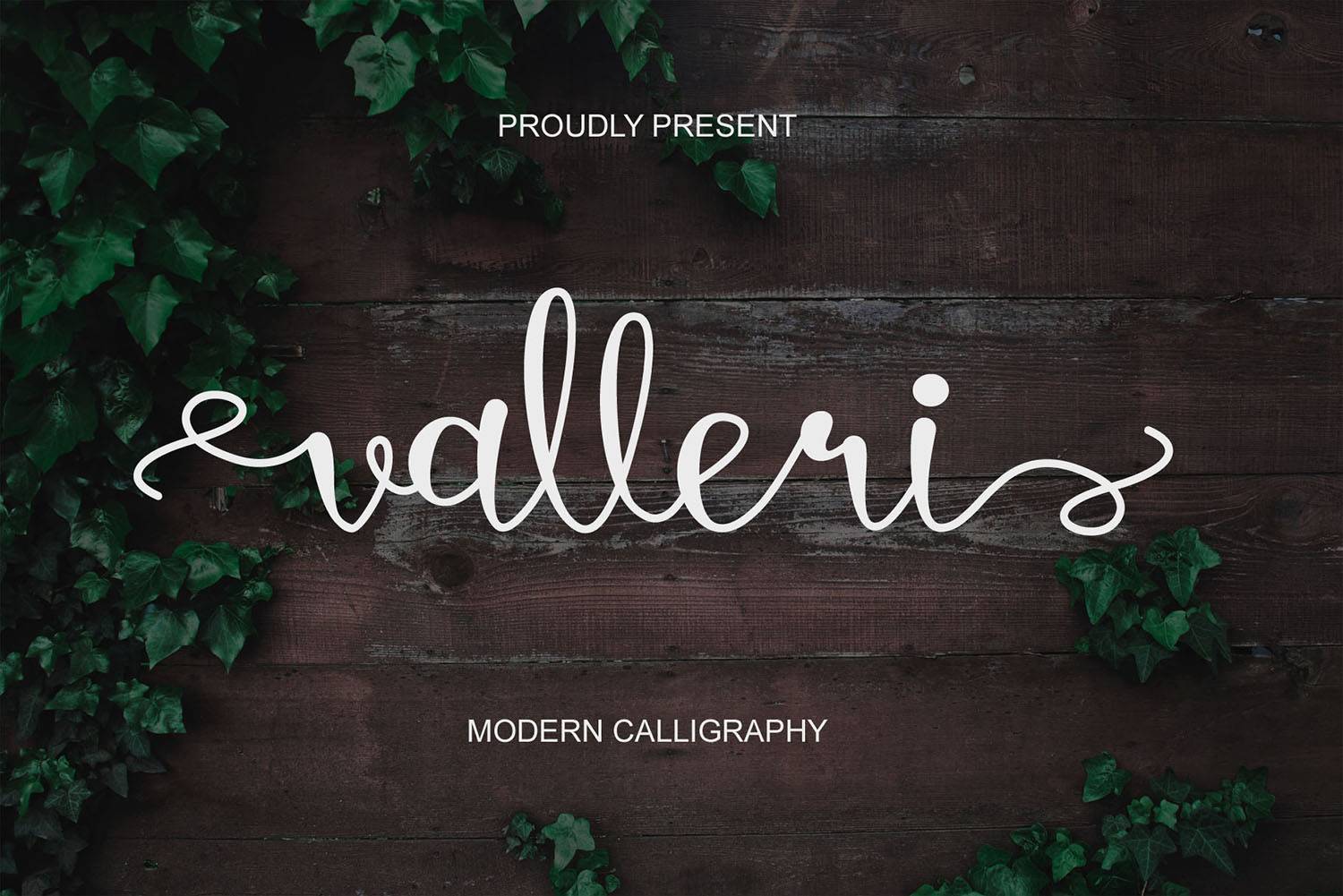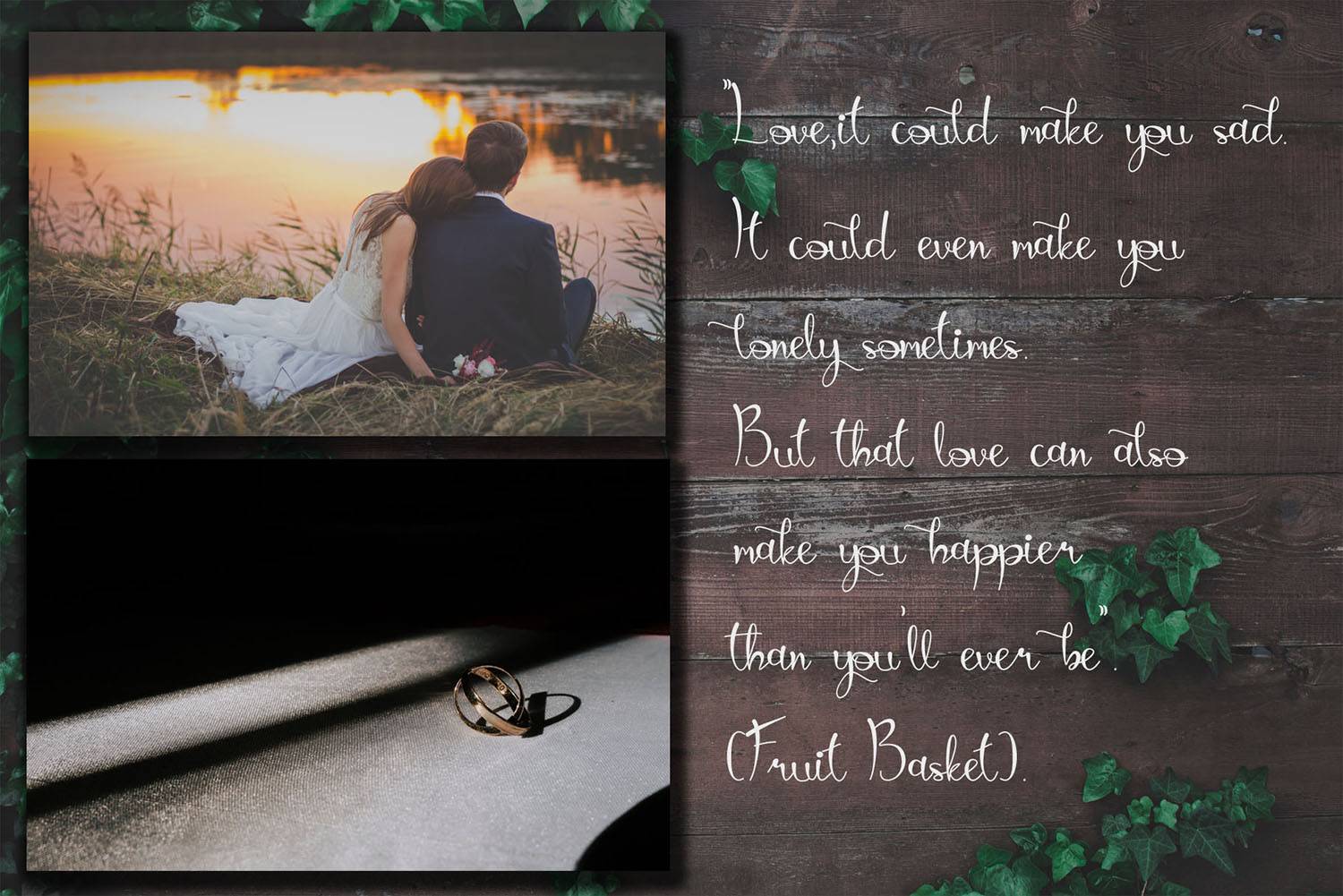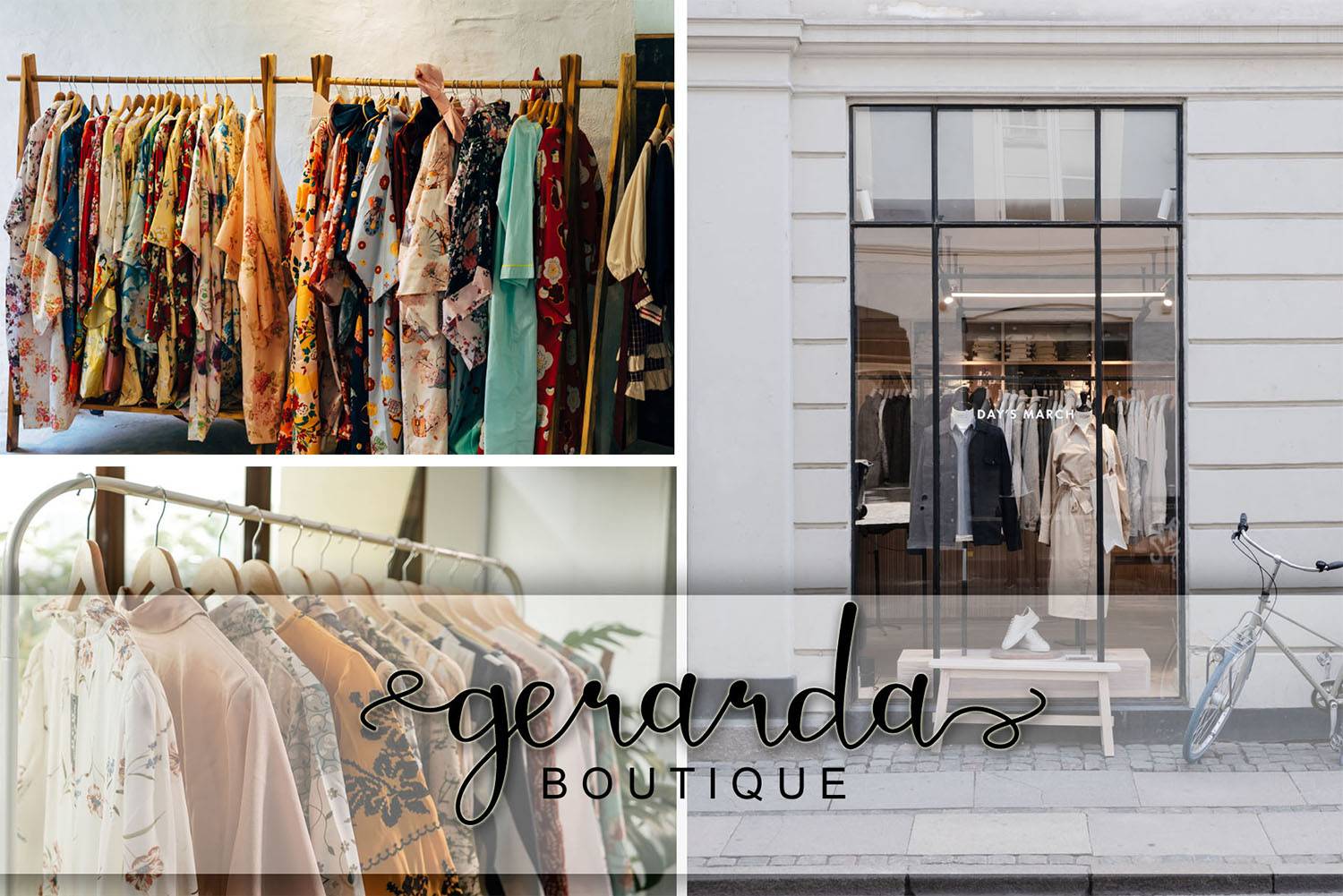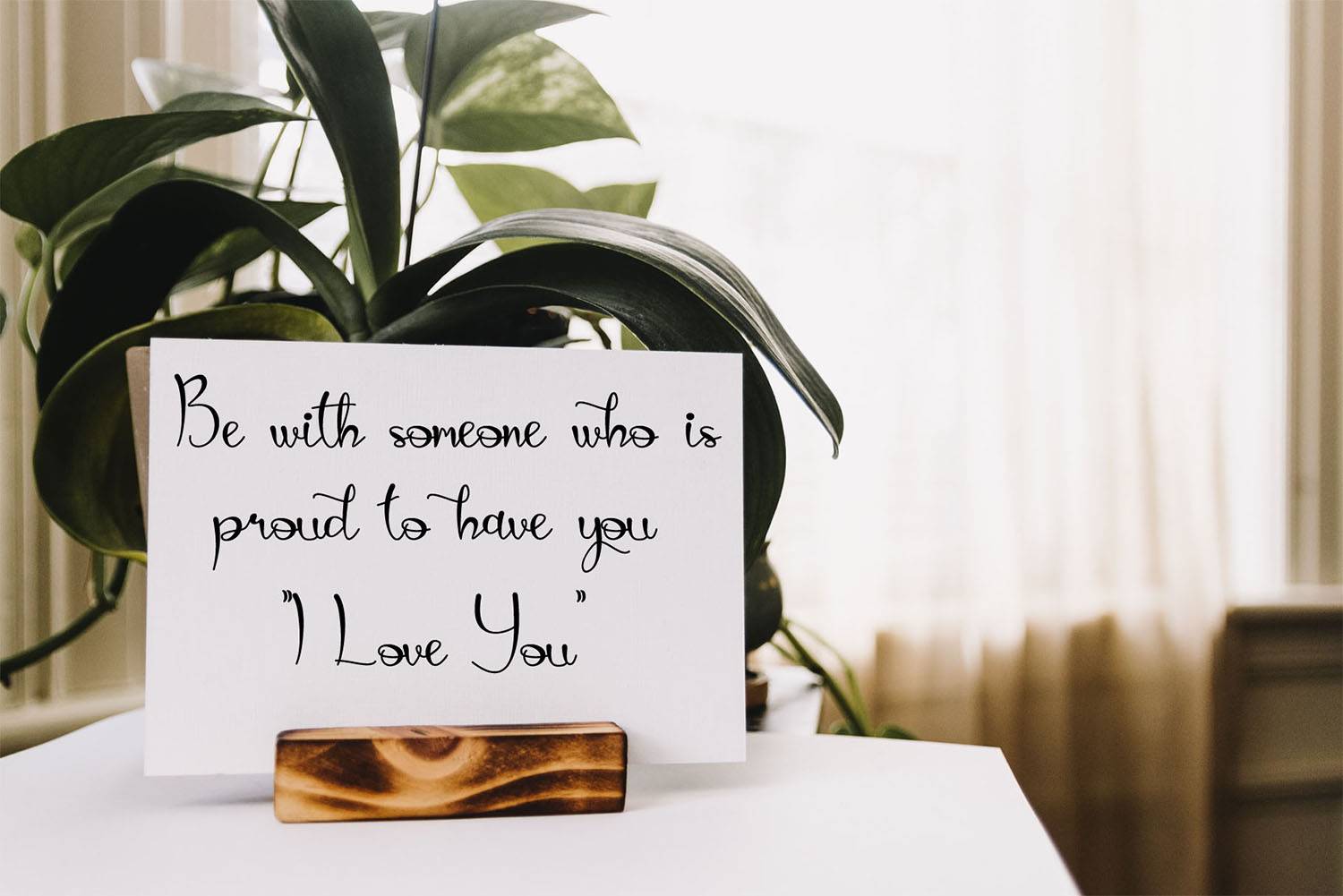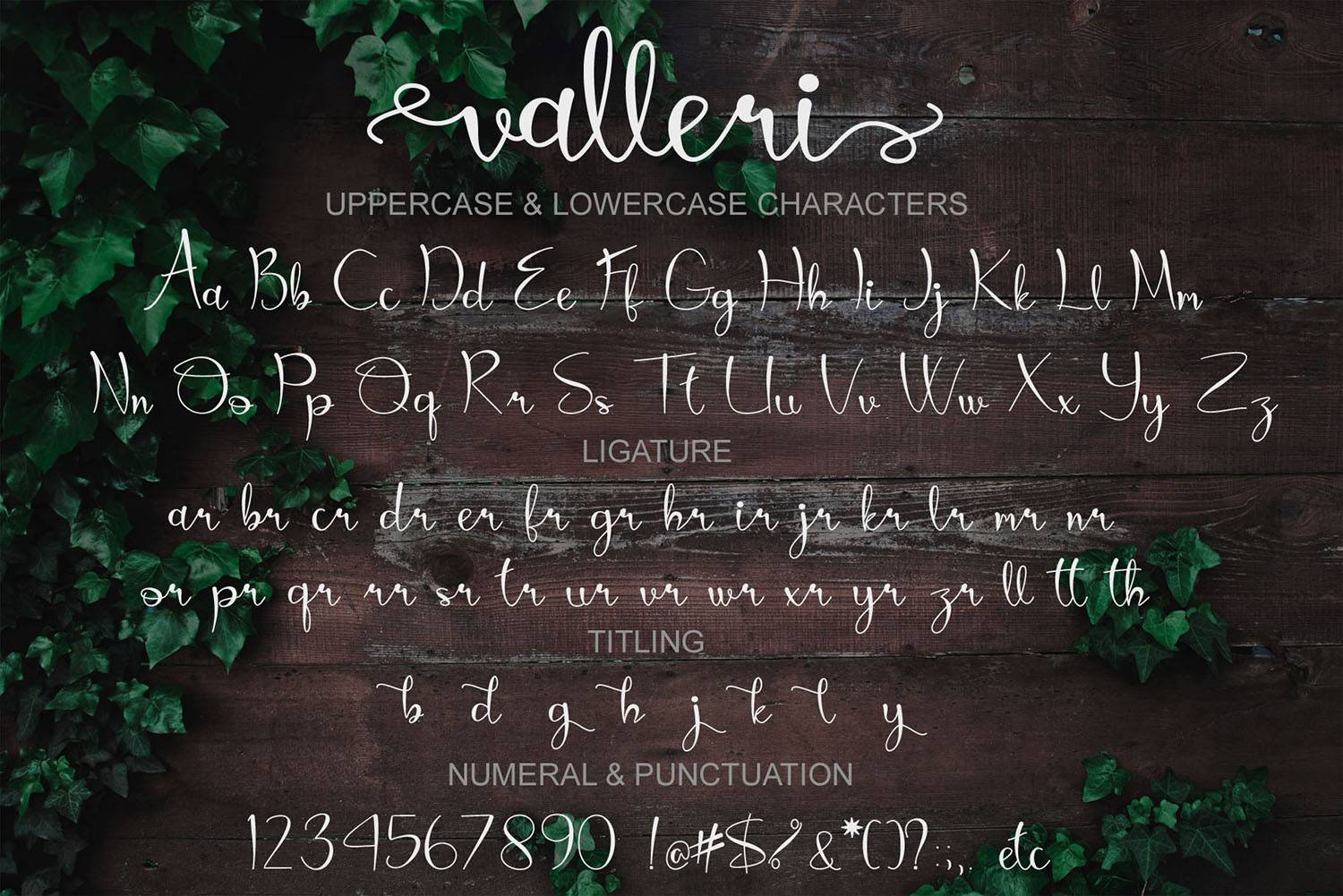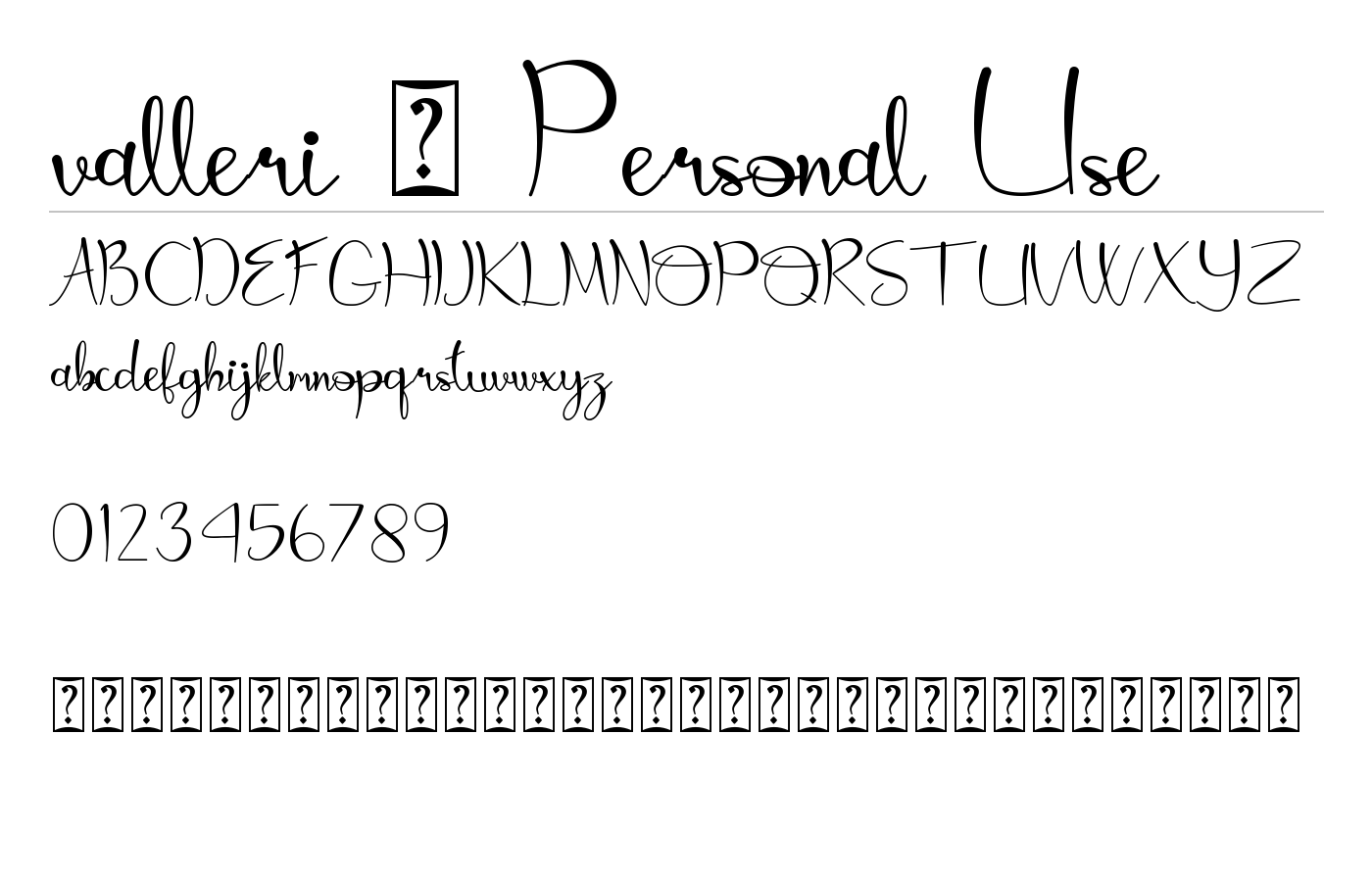
Valleri is a delicate, handwritten script font with a playful and elegant personality. Its slender, slightly irregular strokes and tall x-height give it a casual yet refined feel, making it perfect for creative projects like invitations, branding, and personal stationery that aim to convey warmth and individuality. This font works best in headlines and short texts where its charming, organic style can shine.
Valleri Font
About Valleri Font
| Font family | Valleri Font |
| Designer | Vincentius Kriswandono |